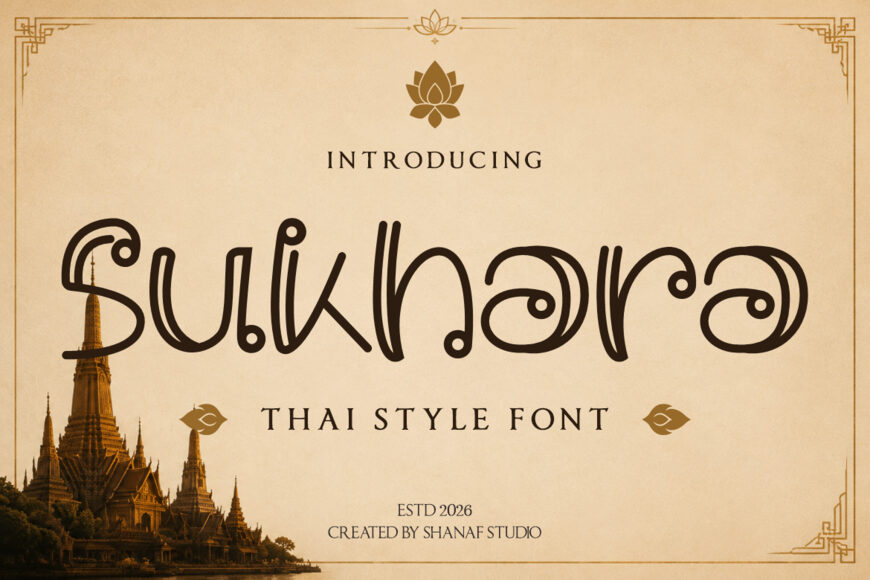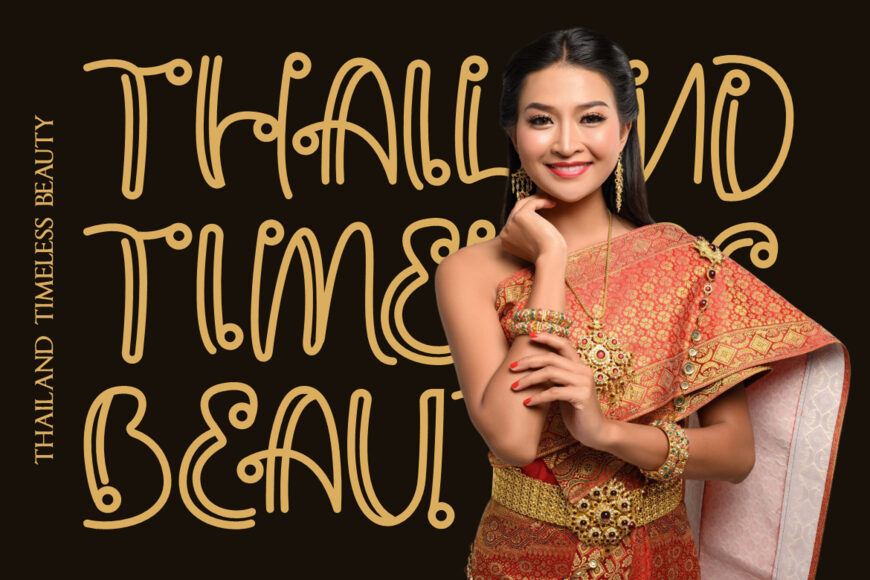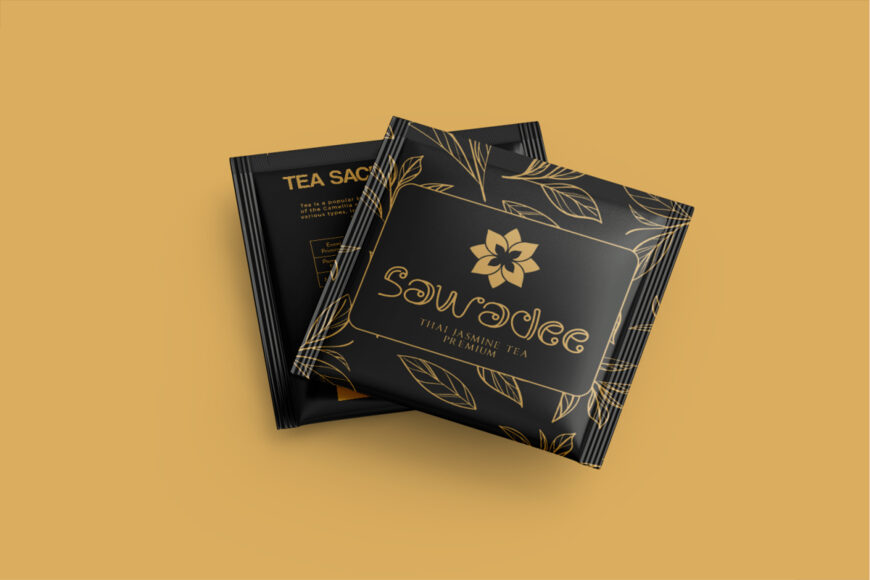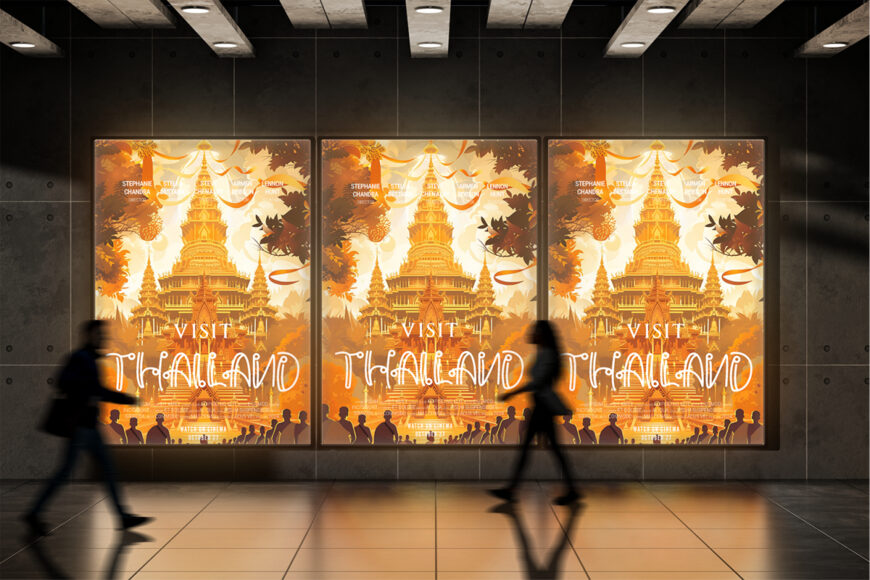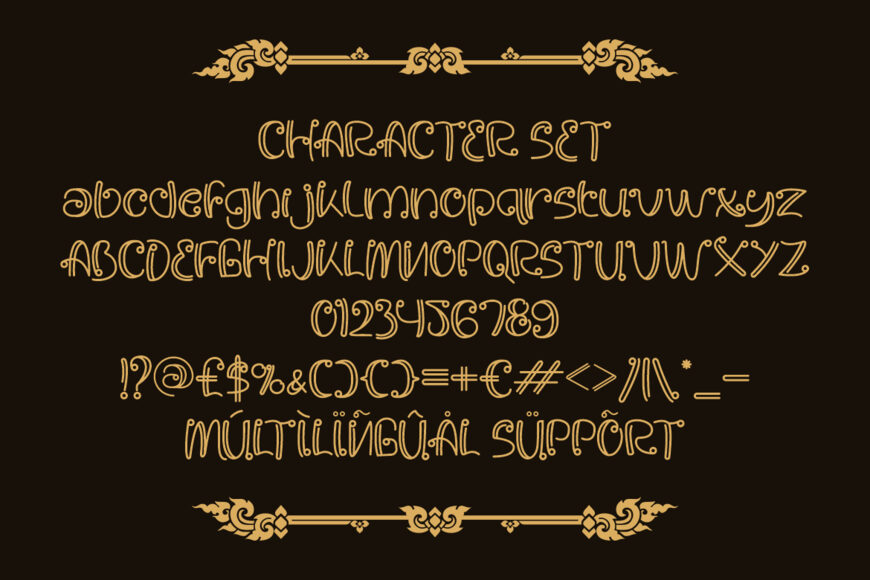
Sukhara is a Thai-style font inspired by the elegance of traditional Southeast Asian design. Its decorative letterforms, flowing details, and consistent monoline strokes create a balanced, refined look. Tall proportions and elongated shapes establish a graceful vertical rhythm, while rounded terminals, ornamental loops, and spiral accents add a handcrafted cultural character.
Though richly styled, its clean construction maintains readability, making it ideal for distinctive logos and headlines. Sukhara suits branding, advertising, packaging, posters, book and magazine covers, invitations, greeting cards, labels, menus, stickers, craft projects, cultural events, tourism promotions, and other promotional materials.